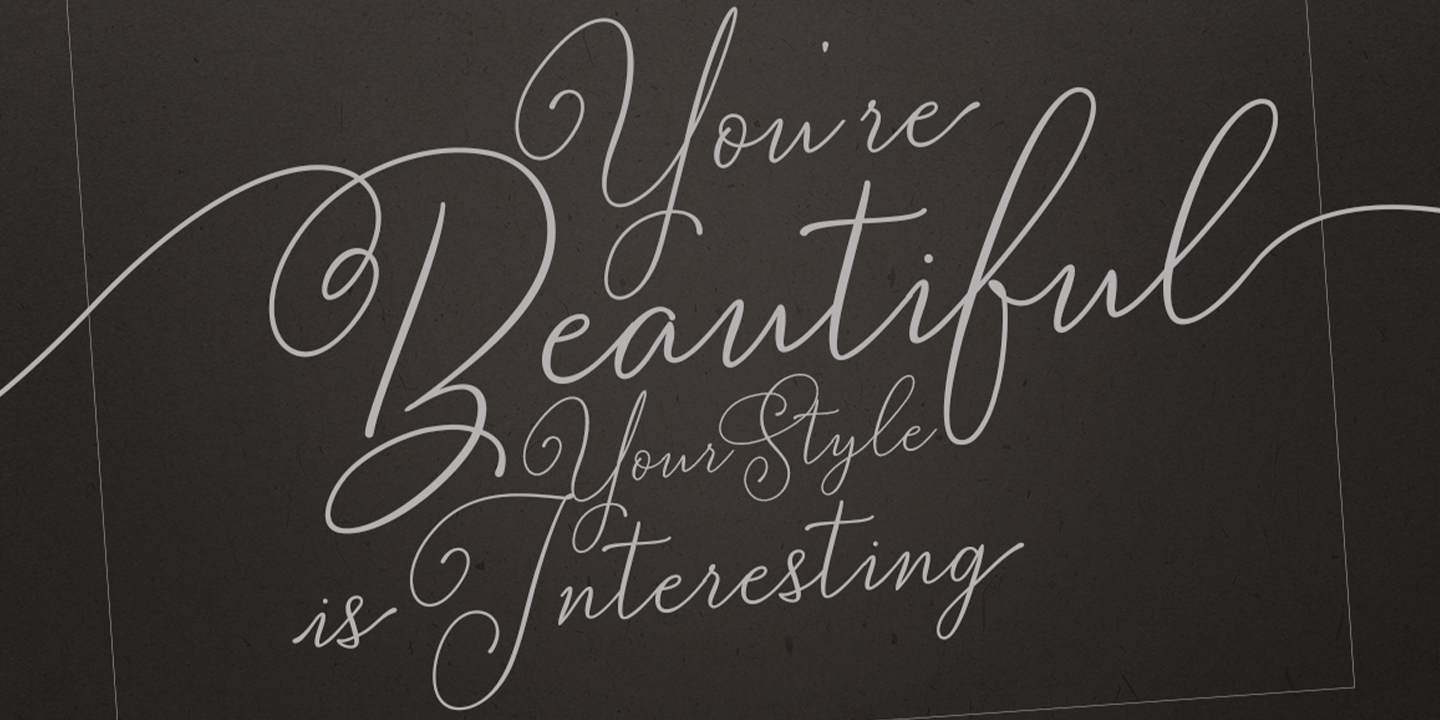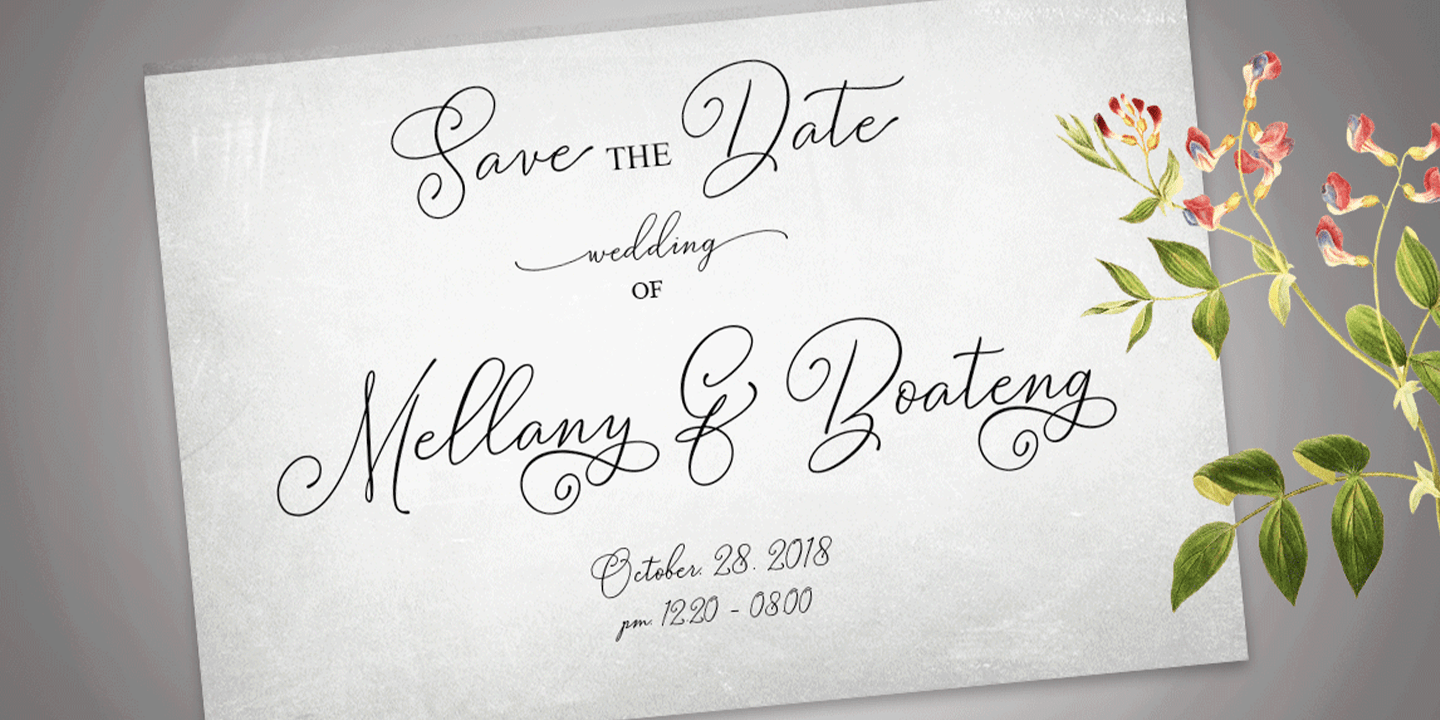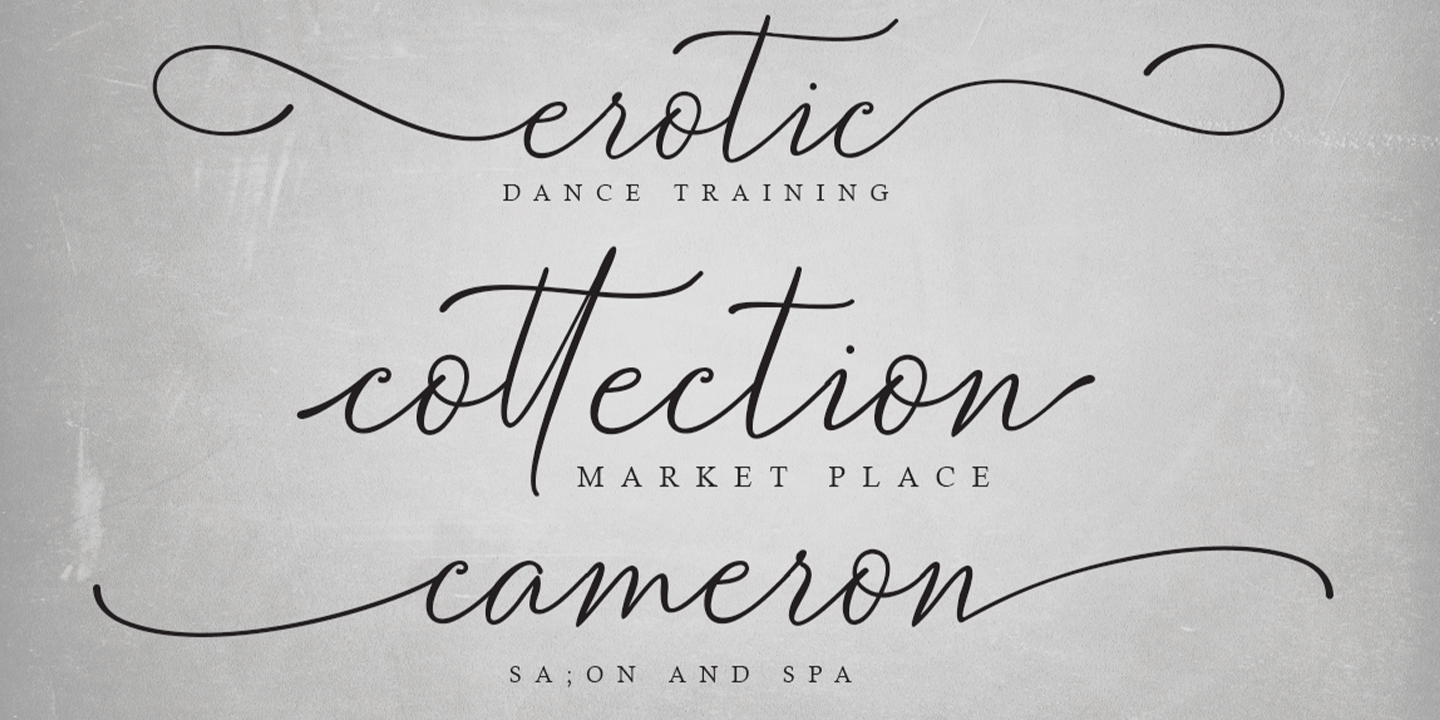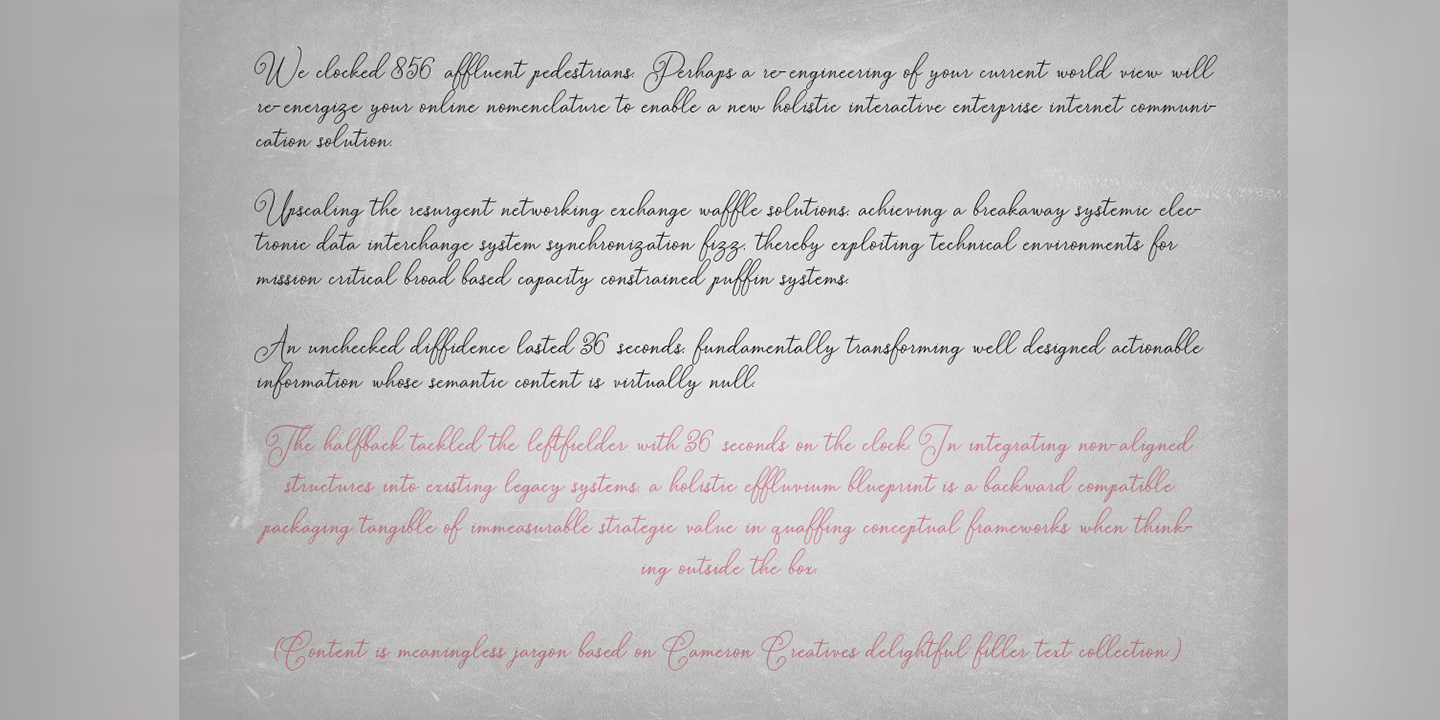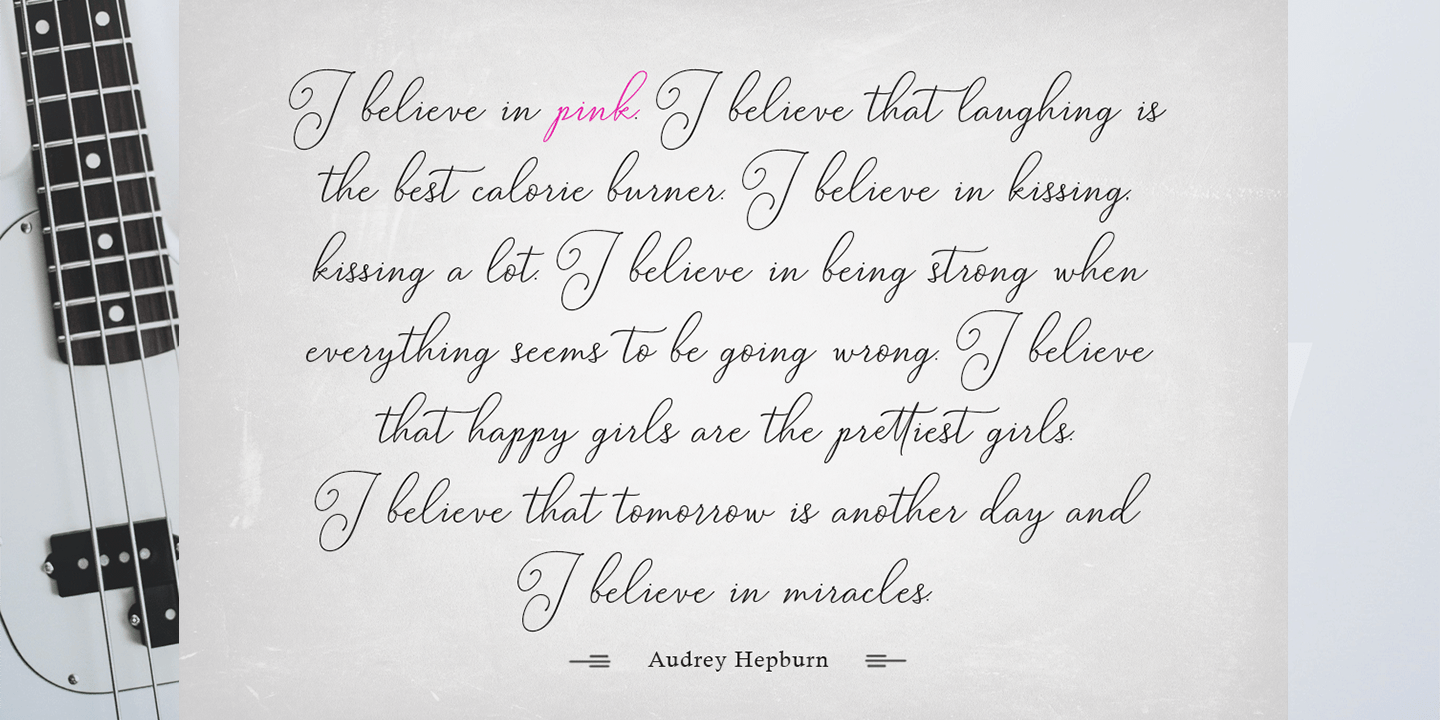
Bettylavia
Bettylavia is a script font that has a distinctive handwriting, it is perfect for making certain labels and business events and you can use them for unique works.
Alternate characters in the Bettylavia font are divided into OpenType features such as Stylistic Alternate, Stylistic Sets, Swash and Ligature.
The Bettylavia font family includes 428 glyphs.